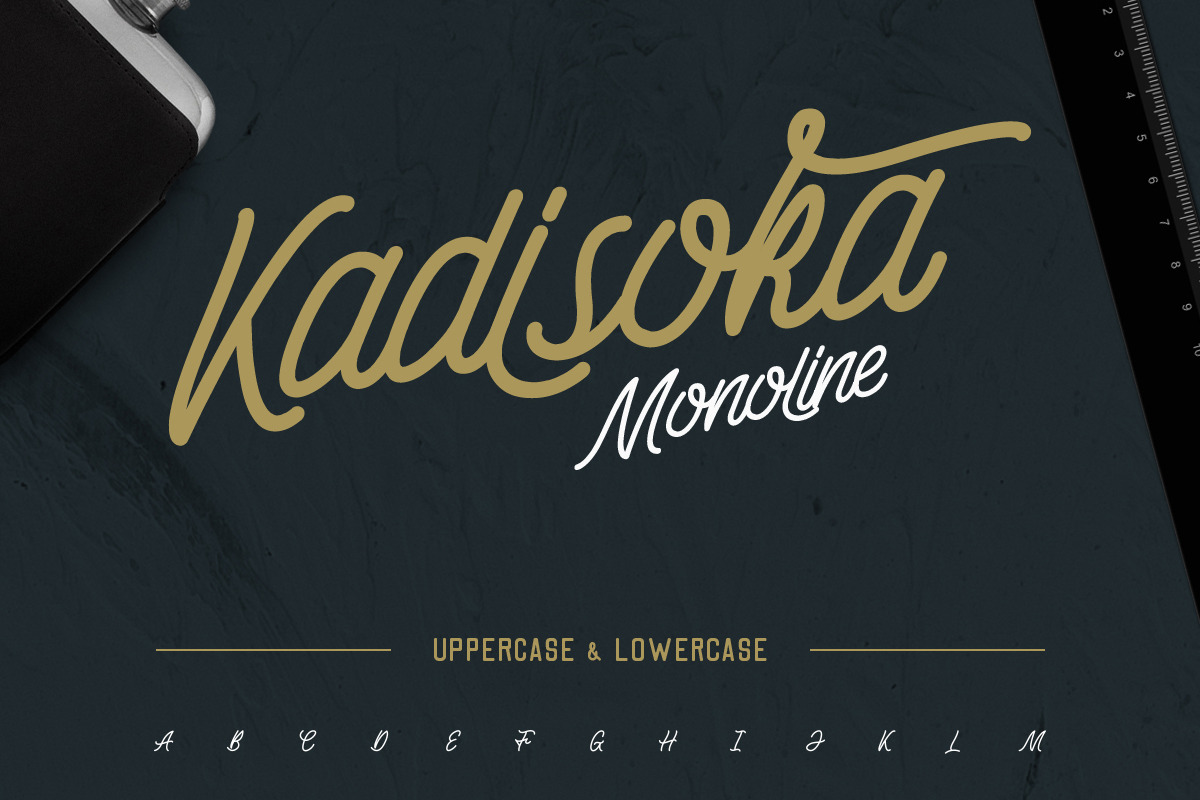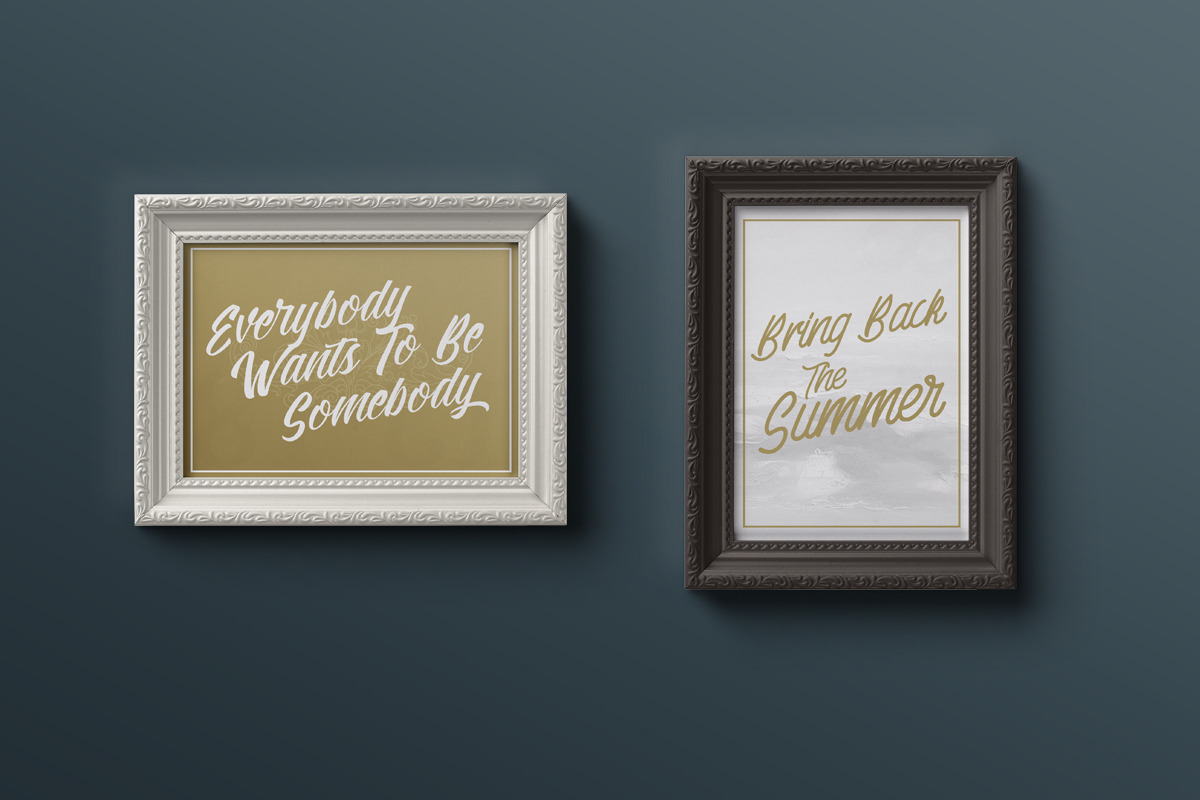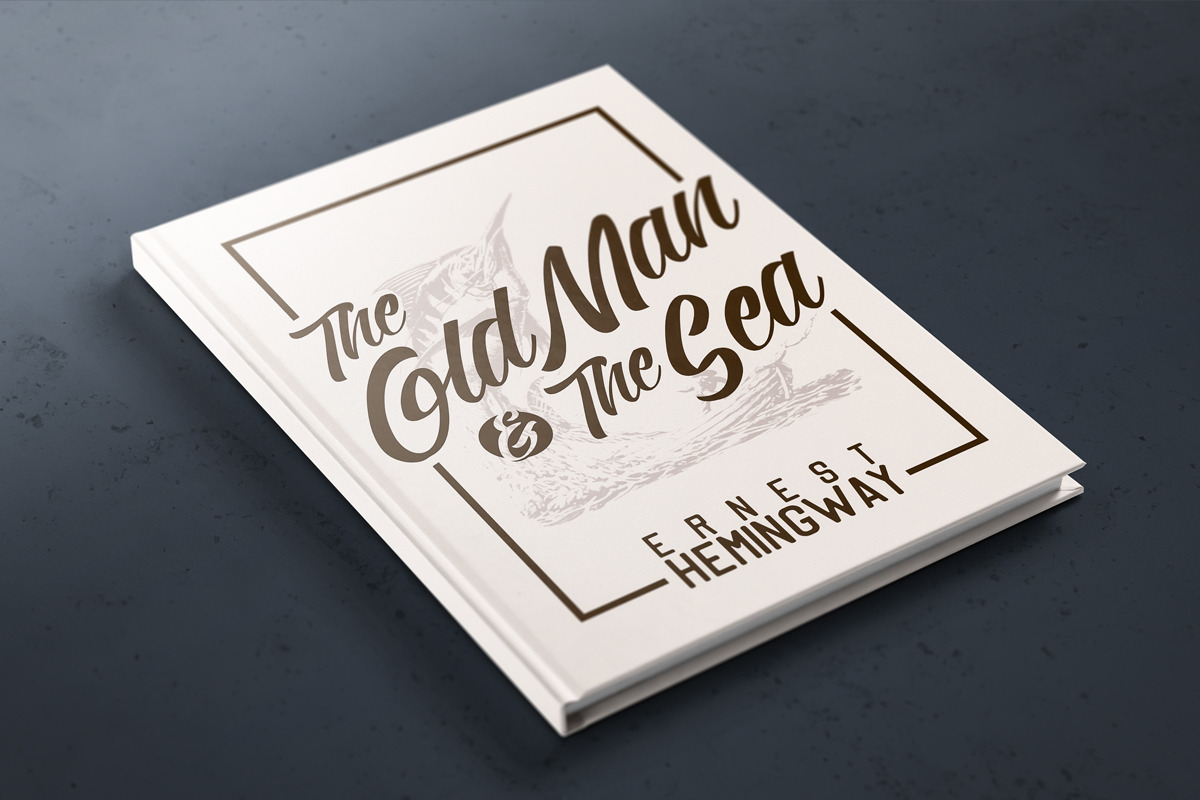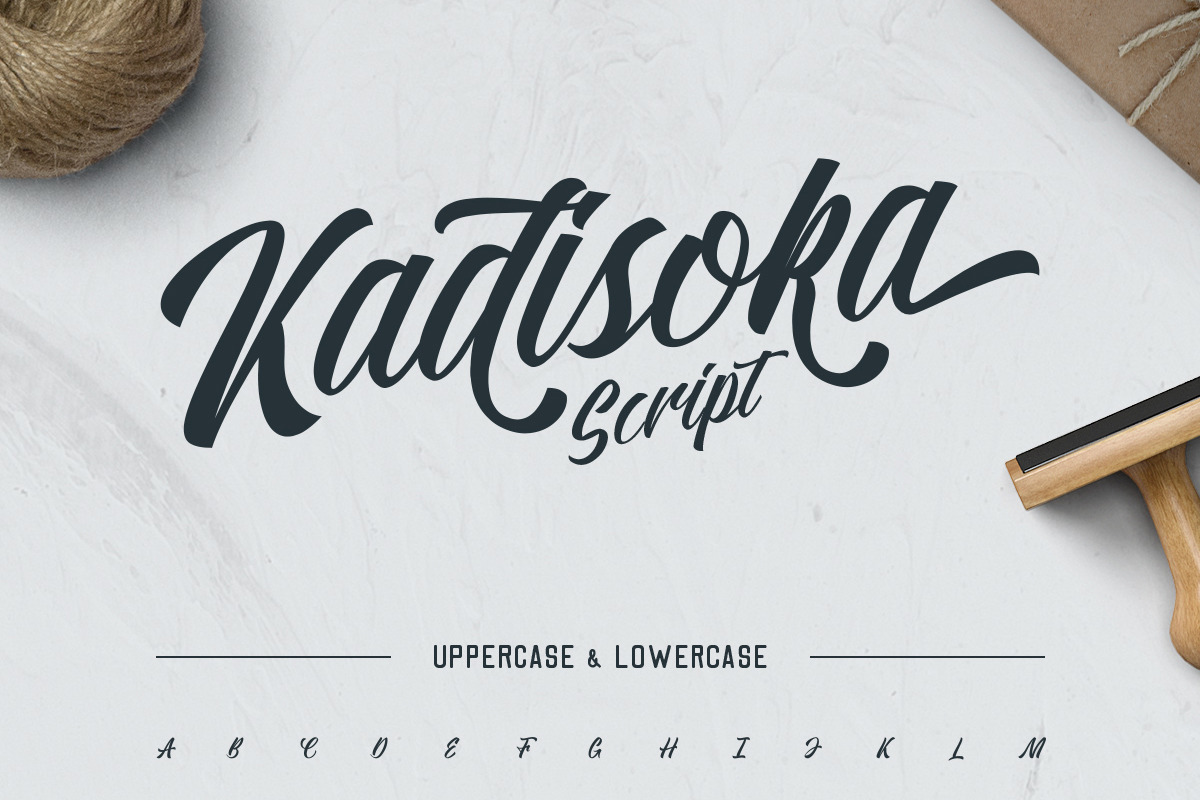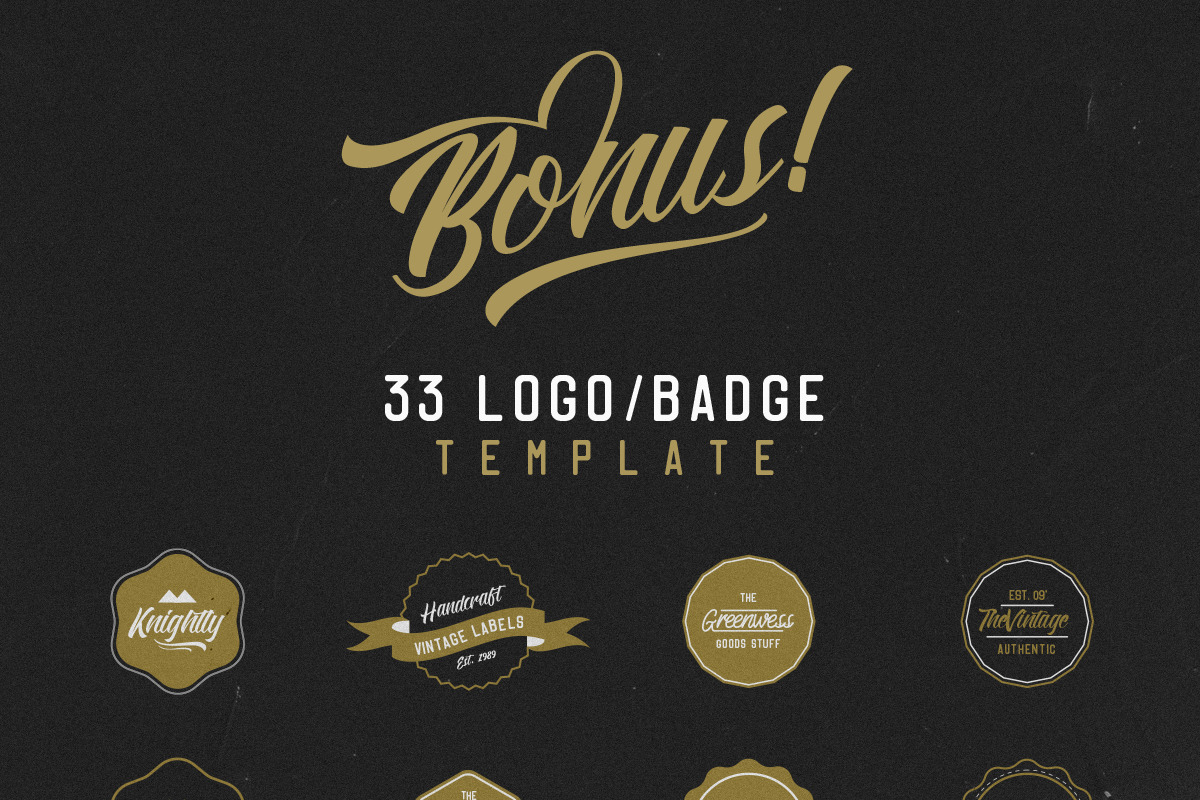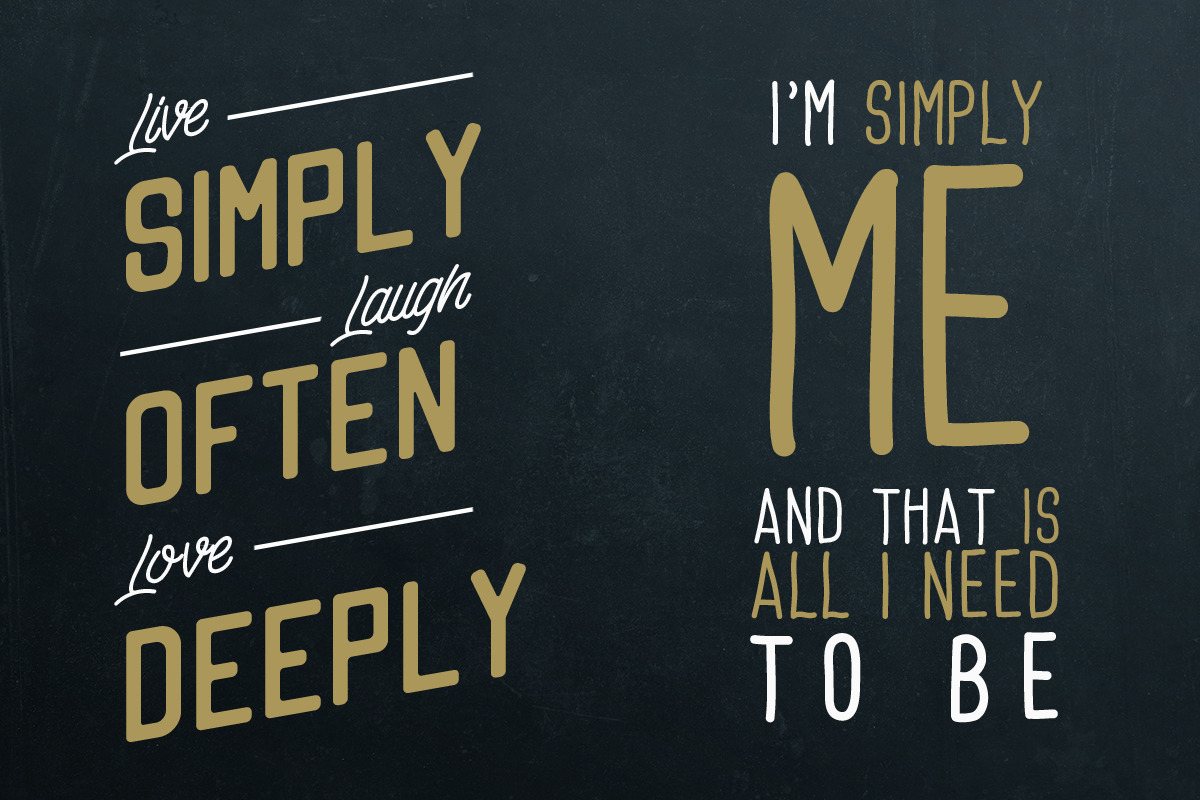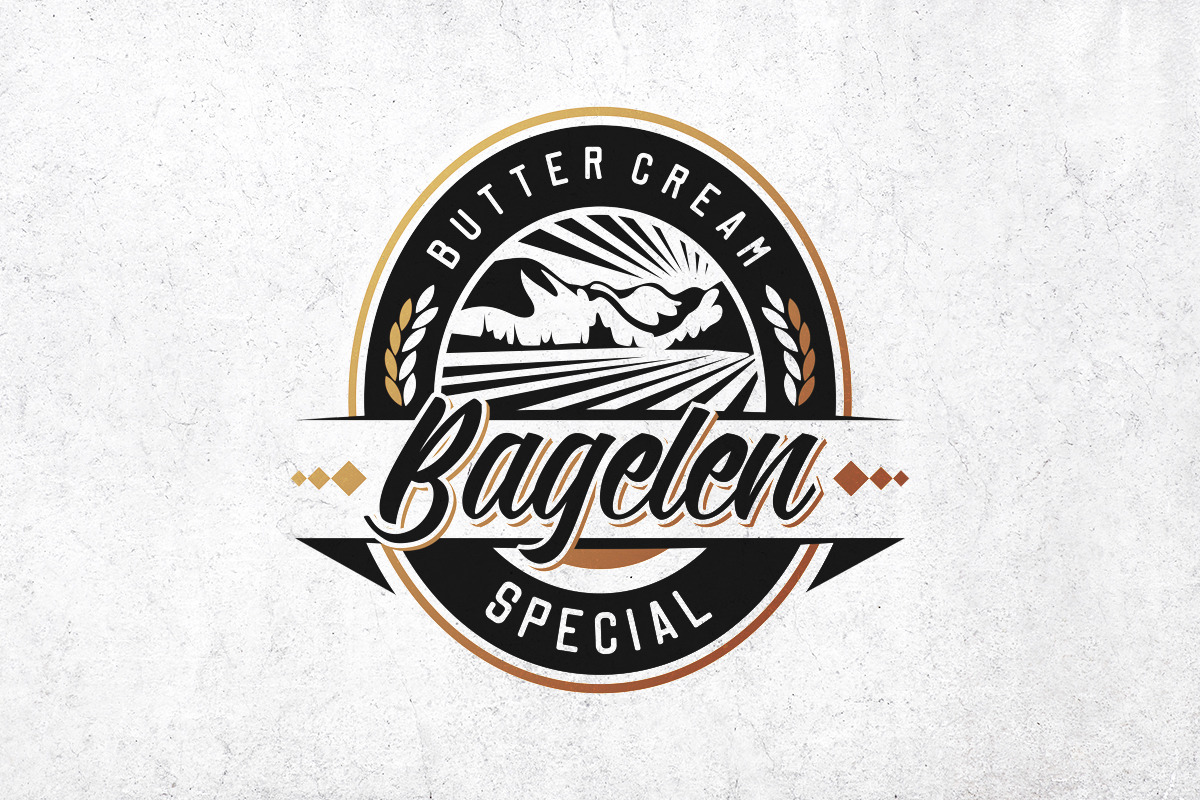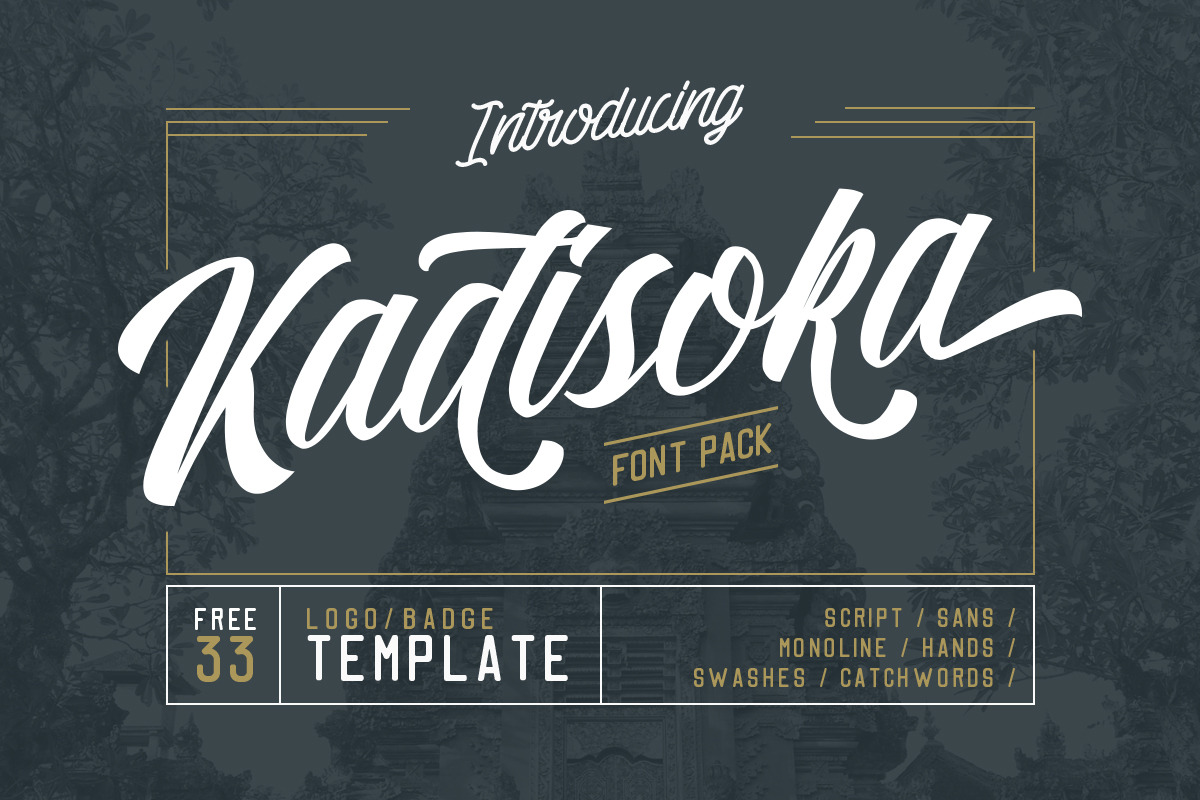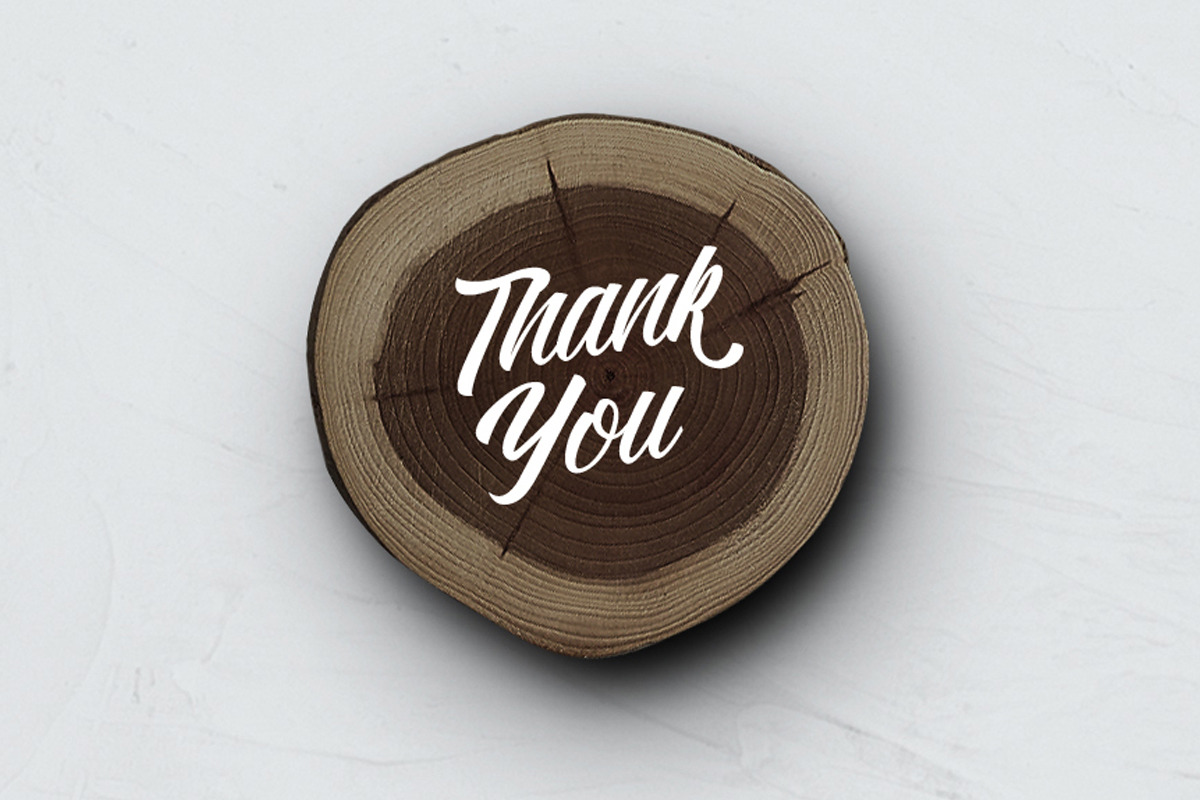
Kadisoka family 5 Fonts
Introducing my first debut : Kadisoka font pack! The reason why I called this product with font pack is because it consist of many items which will make you can't resist to buy!
KADISOKA SCRIPT The main font of this product with total 680++ glyphs! including open type features like ligatures, stylistic alternate, and lots of Stylistic Set. This typeface is based on manual handwriting which is very suitable for any design needs you have especially for script logotype project.
KADISOKA MONOLINE With total 180++ glyphs with upper and lowercase Standard Characters, Punctuation, Numerals including ligatures and stylistic alternate as well.
KADISOKA SANS Neat and nice complemetary typeface which is perfect to combined with the other kadisoka font, or used as main font.
KADISOKA HAND Typeface with hand-writing feel, perfect for fun and casual project. Works well as complementary font and main font.
KADISOKA SWASHES Contain swashes and catchwords that you will need to make your project looks even more awesome!